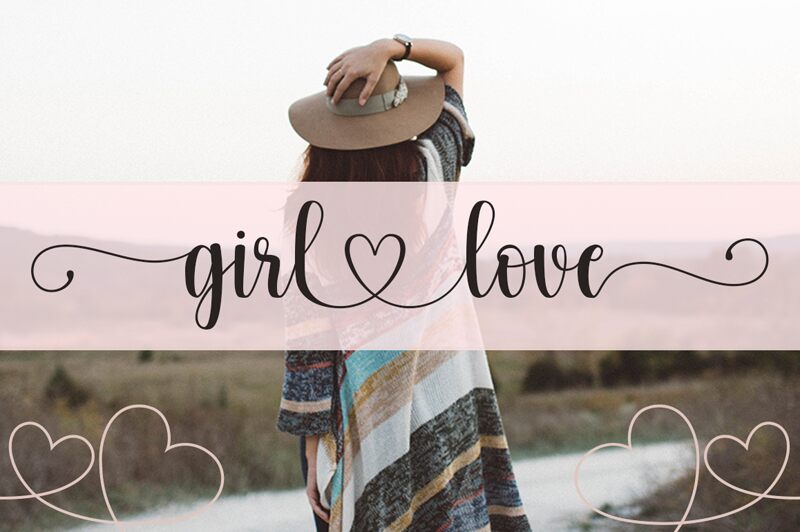
girlloveScript
Girl Love Script, designed by Zane Studio, is a captivating font that exudes elegance and grace with its modern calligraphy style. Its semi-light weight adds a delicate touch to any project.
Perfect for wedding invitations, feminine branding, or heartfelt quotes, this font effortlessly adds a romantic and sophisticated feel to your designs.